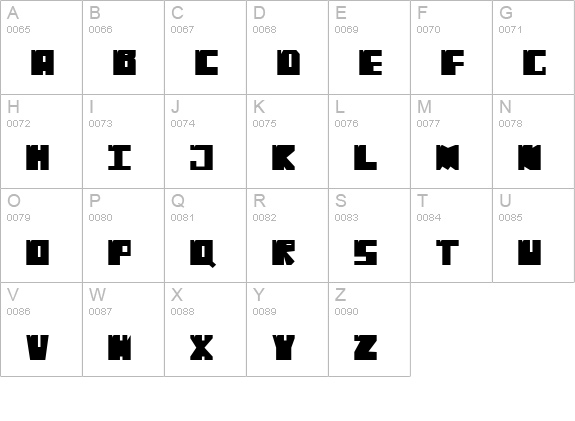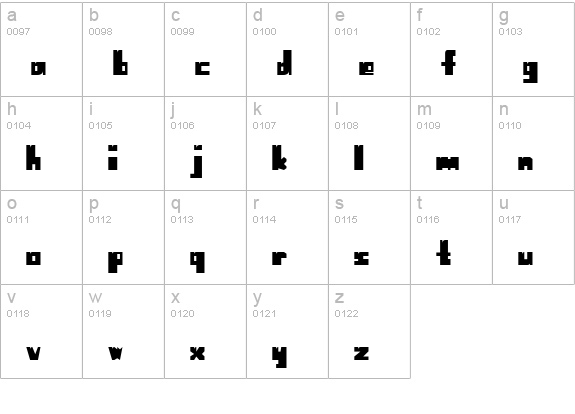
No Harmony Left Side Cut Font Details
The No Harmony Left Side Cut font is a stunning display typeface that exudes a unique blend of modernity and elegance. With its sharp edges and stylish cutouts on the left side of each character, this font is sure to make a striking statement in any design project. The intricate details and sleek design of this font capture a sense of sophistication and creativity, making it perfect for branding, logos, posters, and more. What's even better is that the No Harmony Left Side Cut font is available for free download at FontsMarket.com. This means that you can easily enhance your designs with this eye-catching typeface without any cost involved. Don't miss out on the opportunity to add a touch of modern flair to your projects with the No Harmony Left Side Cut font. Download it today and let your creativity shine!